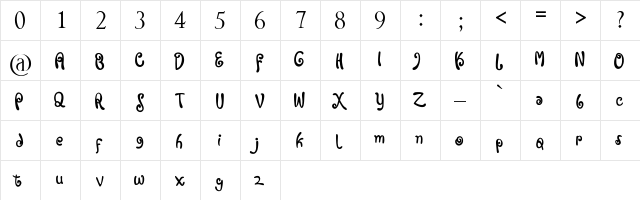
Swaylea Regular
| Designer | 160 Studio |
Design Context for Swaylea Typeface
Swaylea is a composed and adaptable typeface that performs quietly and consistently across a wide range of design contexts.